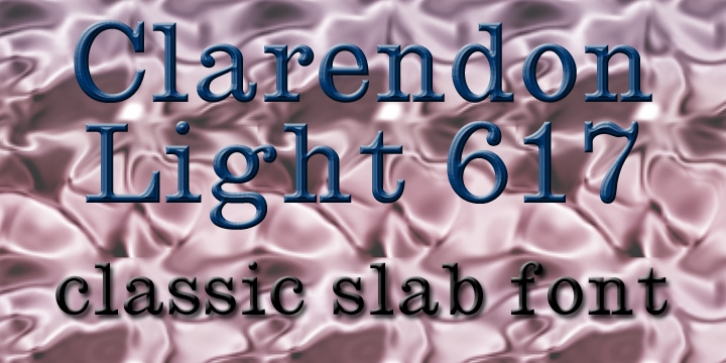
Clarendon 617 downloadDesigner: Robert Besley,
Publisher: Wooden Type Fonts
One of the classic display types of the 19th century, an Egyptian with bracketed serifs. There are many variants of this face and its uses are many.